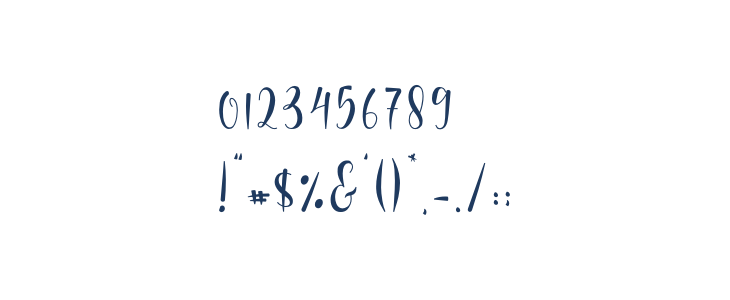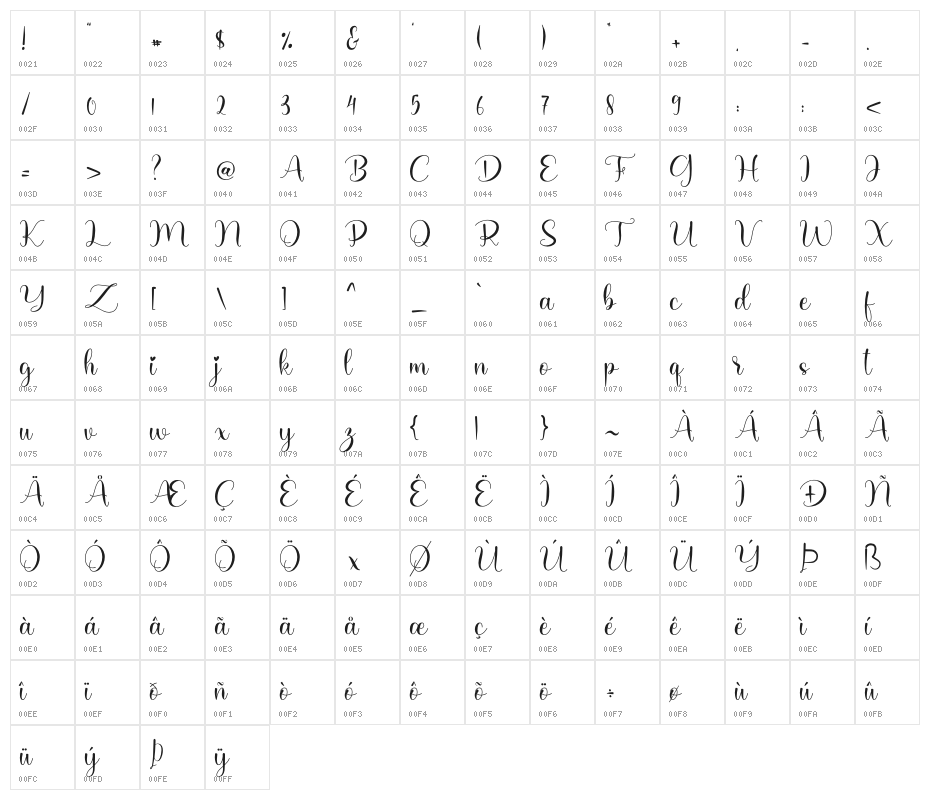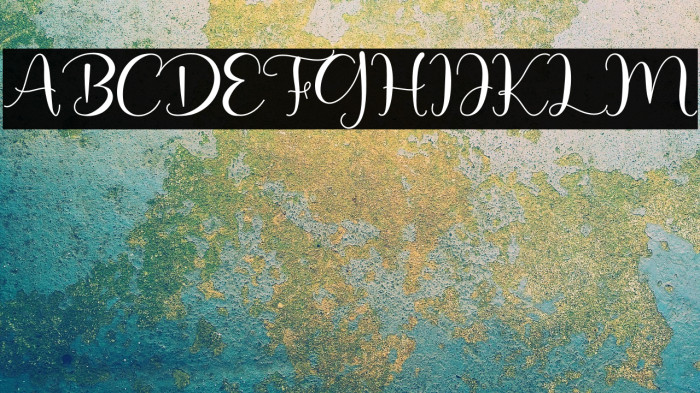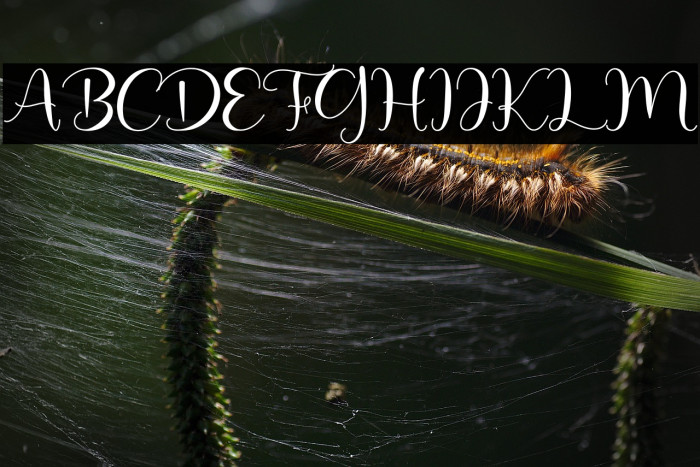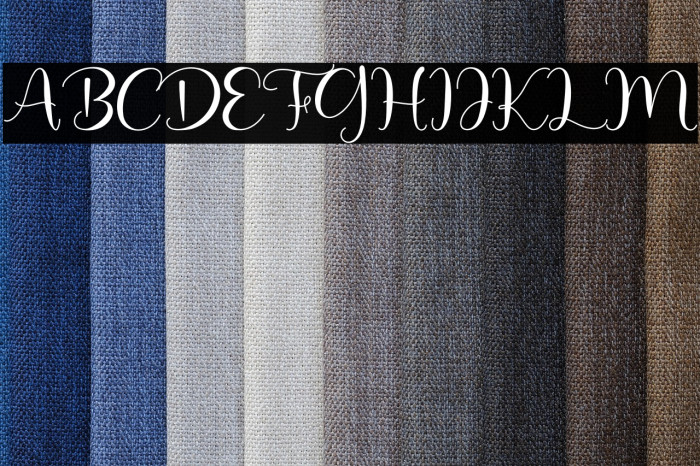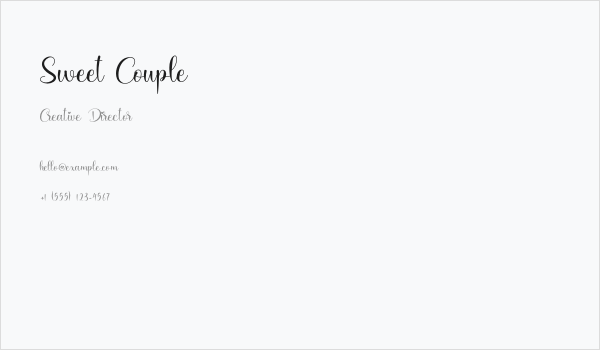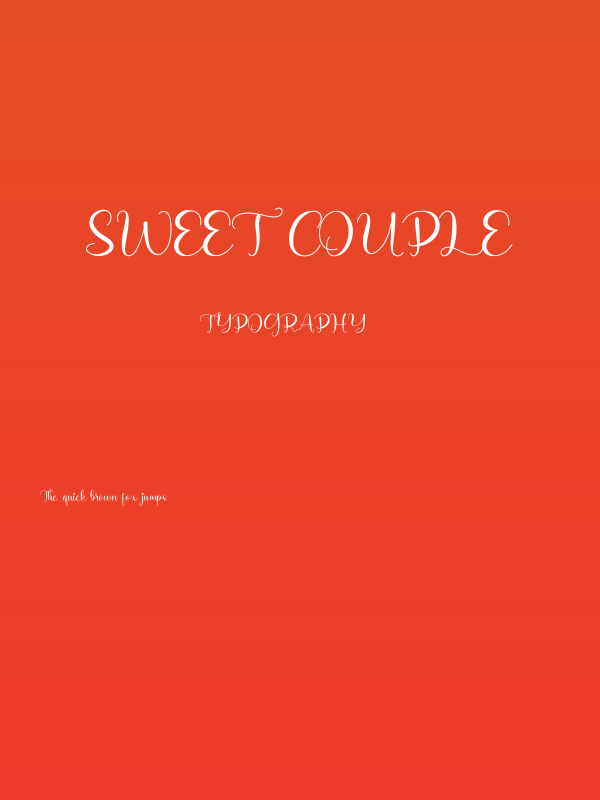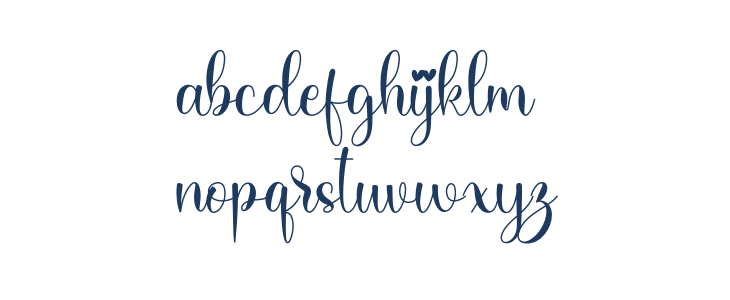
Sweet Couple Font
This font features a charming and elegant script style with a flowing, cursive design. The uppercase letters are characterized by graceful loops and swirls, giving them a romantic and sophisticated appearance. The lowercase letters maintain a consistent flow, with some characters featuring unique flourishes that add to the overall aesthetic. The numerals are stylish and maintain the script's fluidity, while the special characters are designed to complement the overall theme. This font is perfect for projects that require a touch of elegance and personality.
Overall StyleElegant
Use CaseLogos, Invitations, Greeting Cards
Proposed ProjectsIdeal for wedding invitations, greeting cards, branding, and elegant packaging designs.